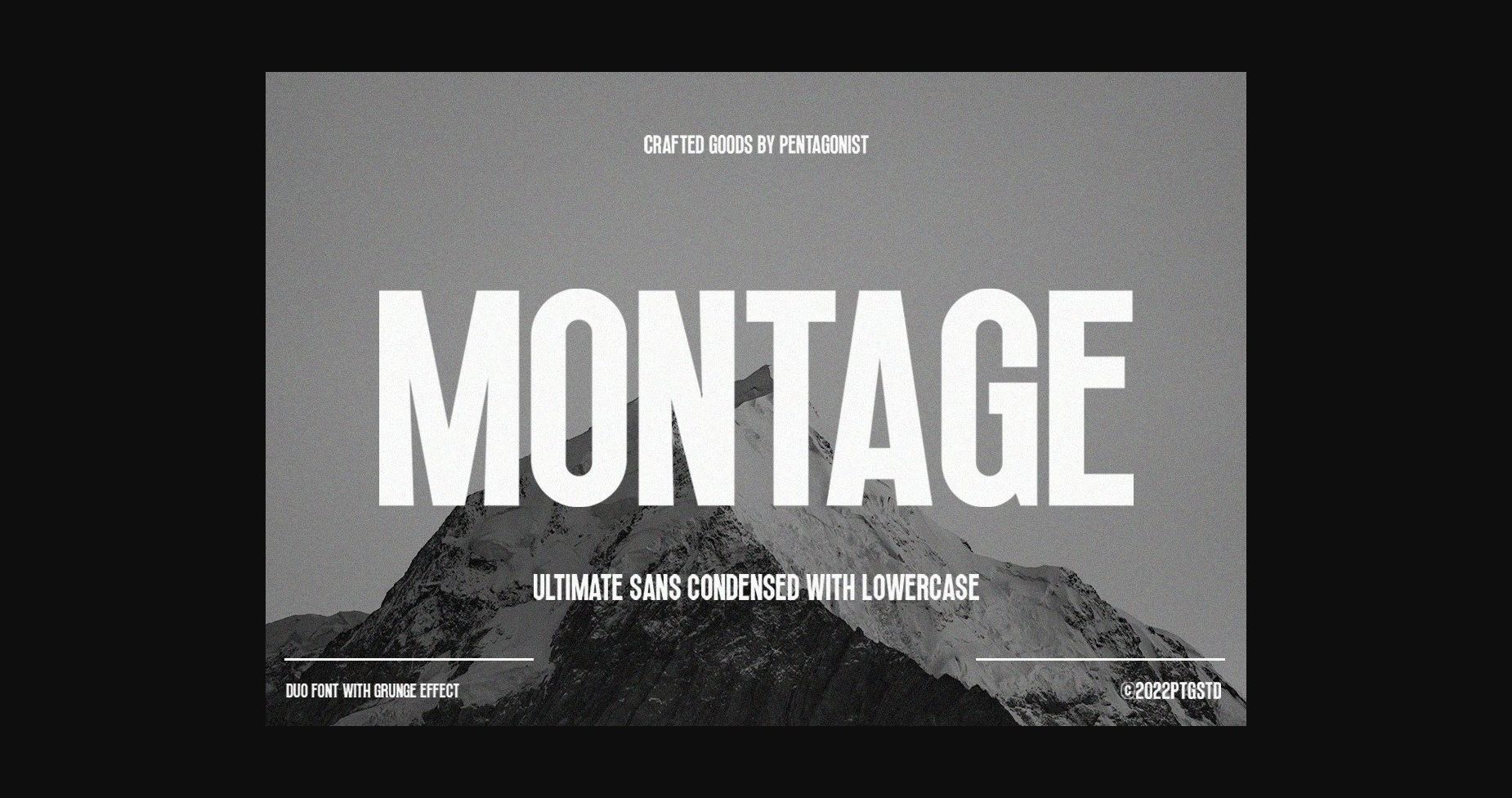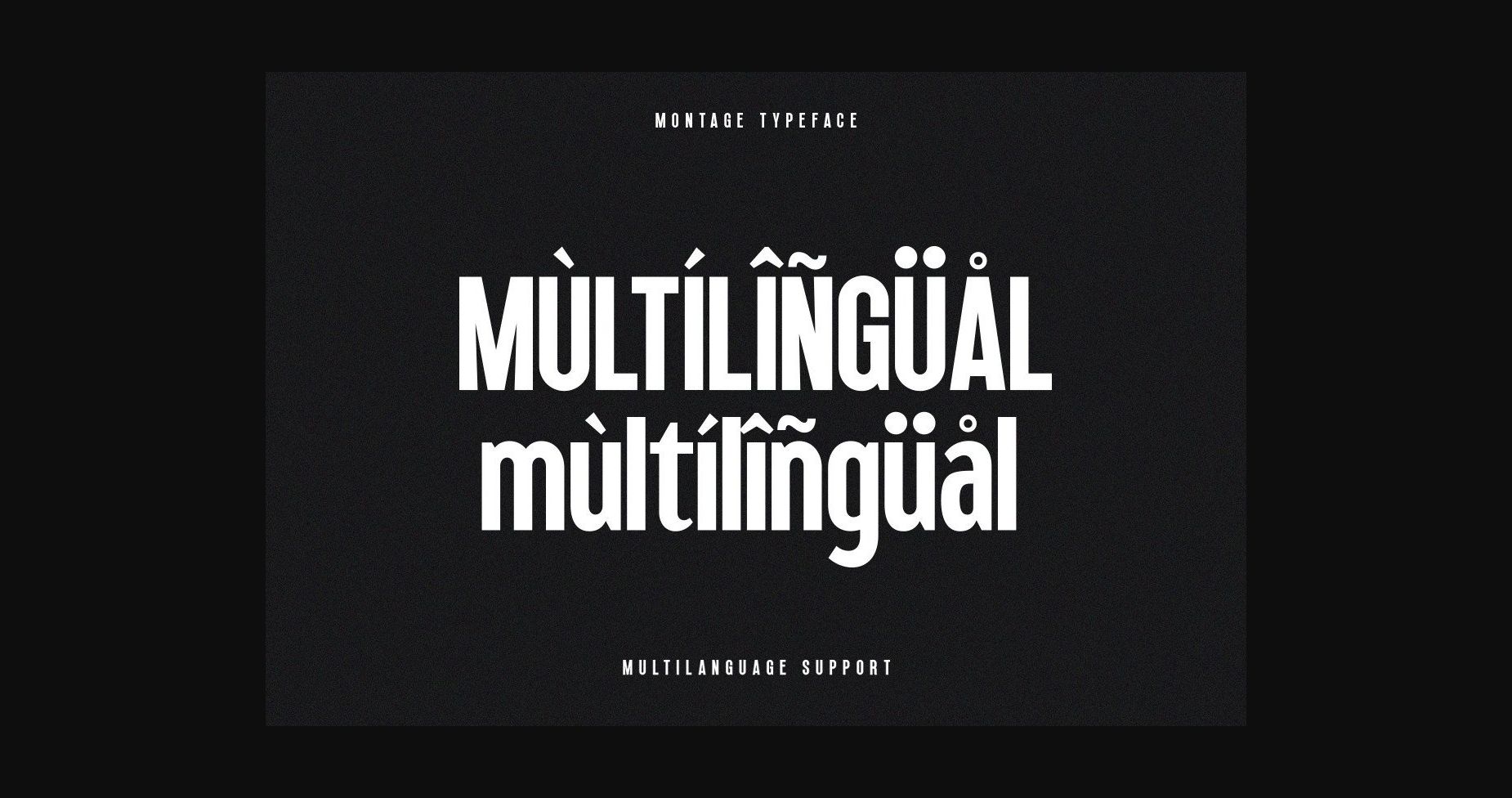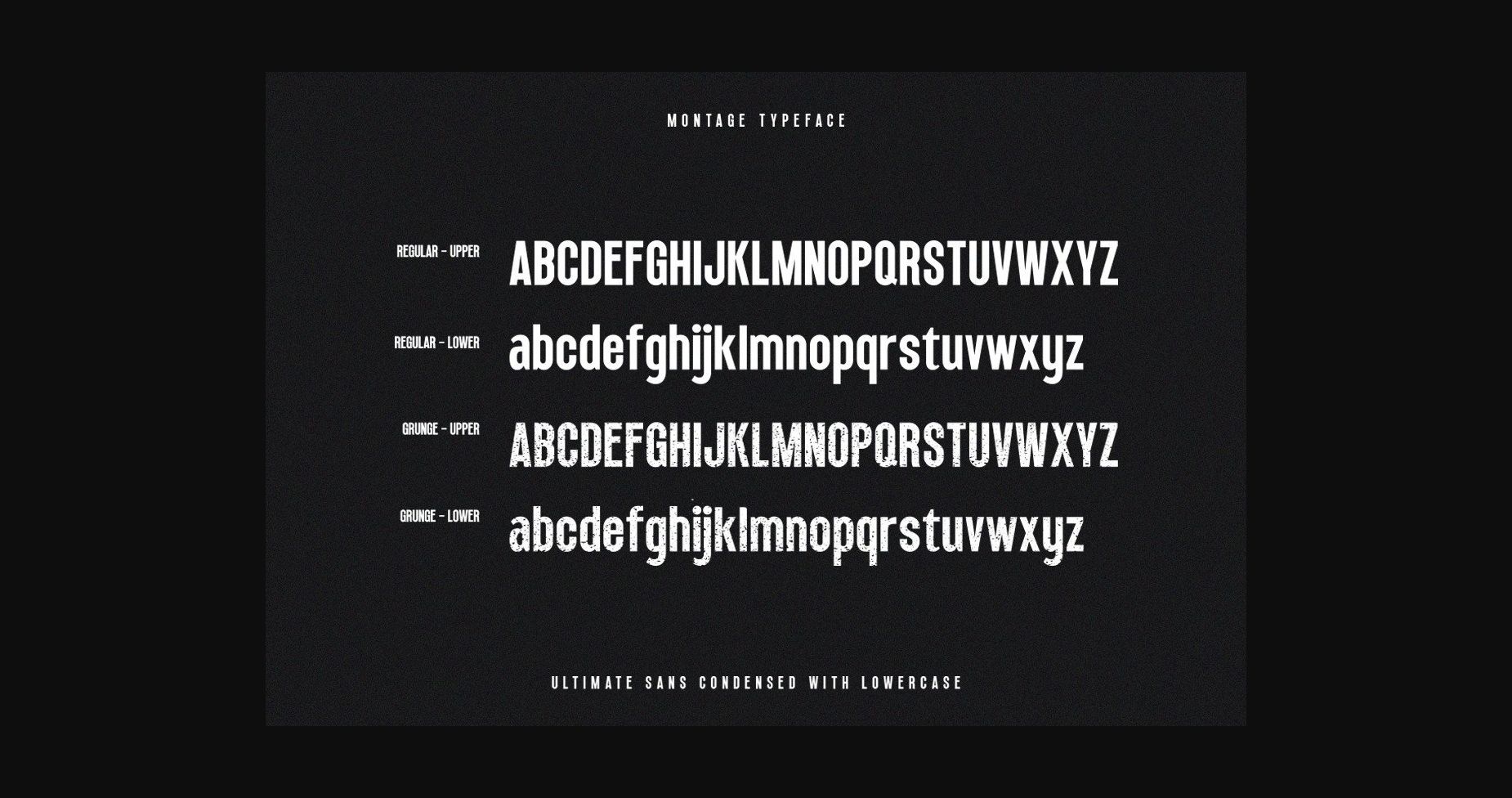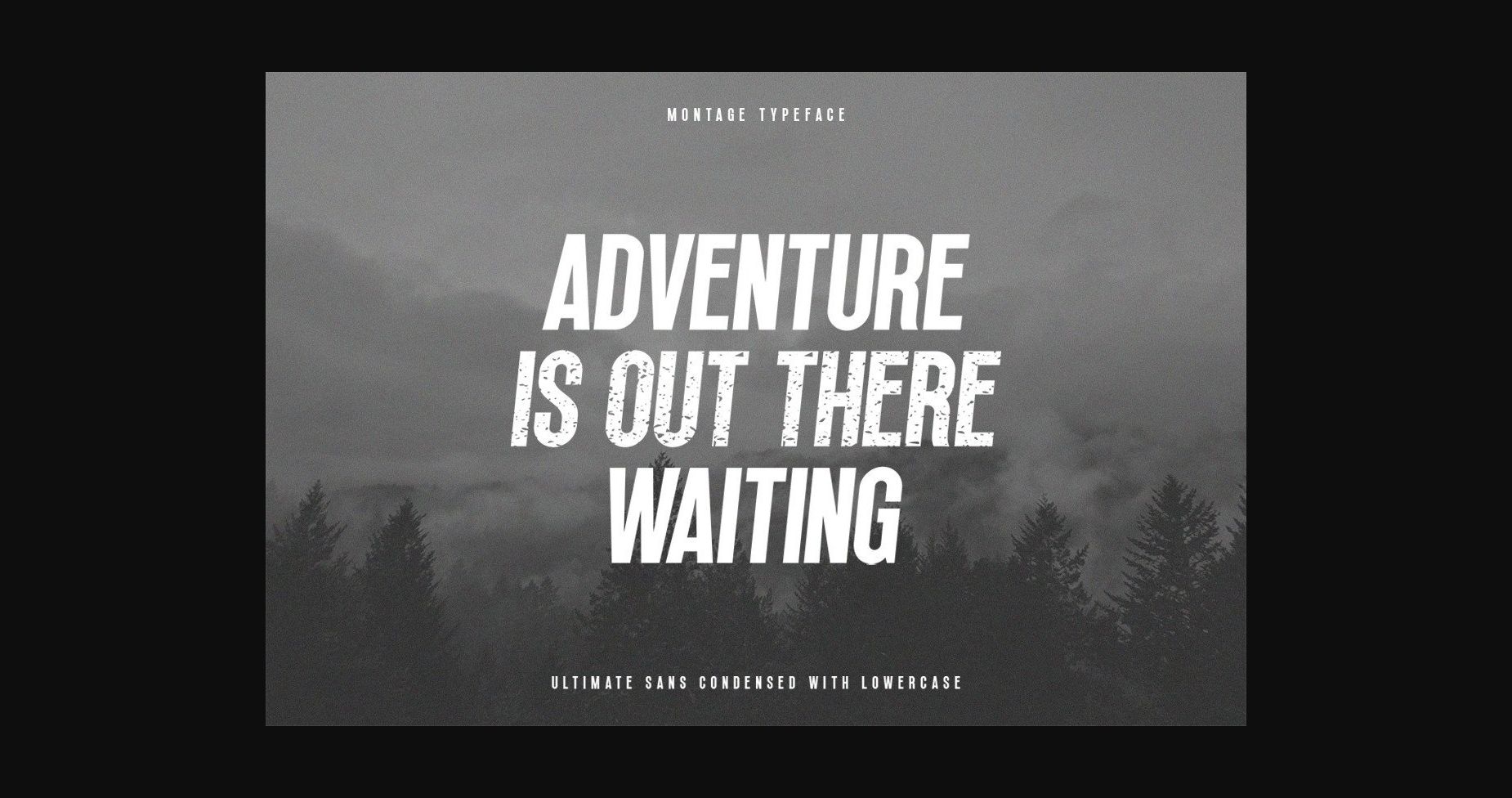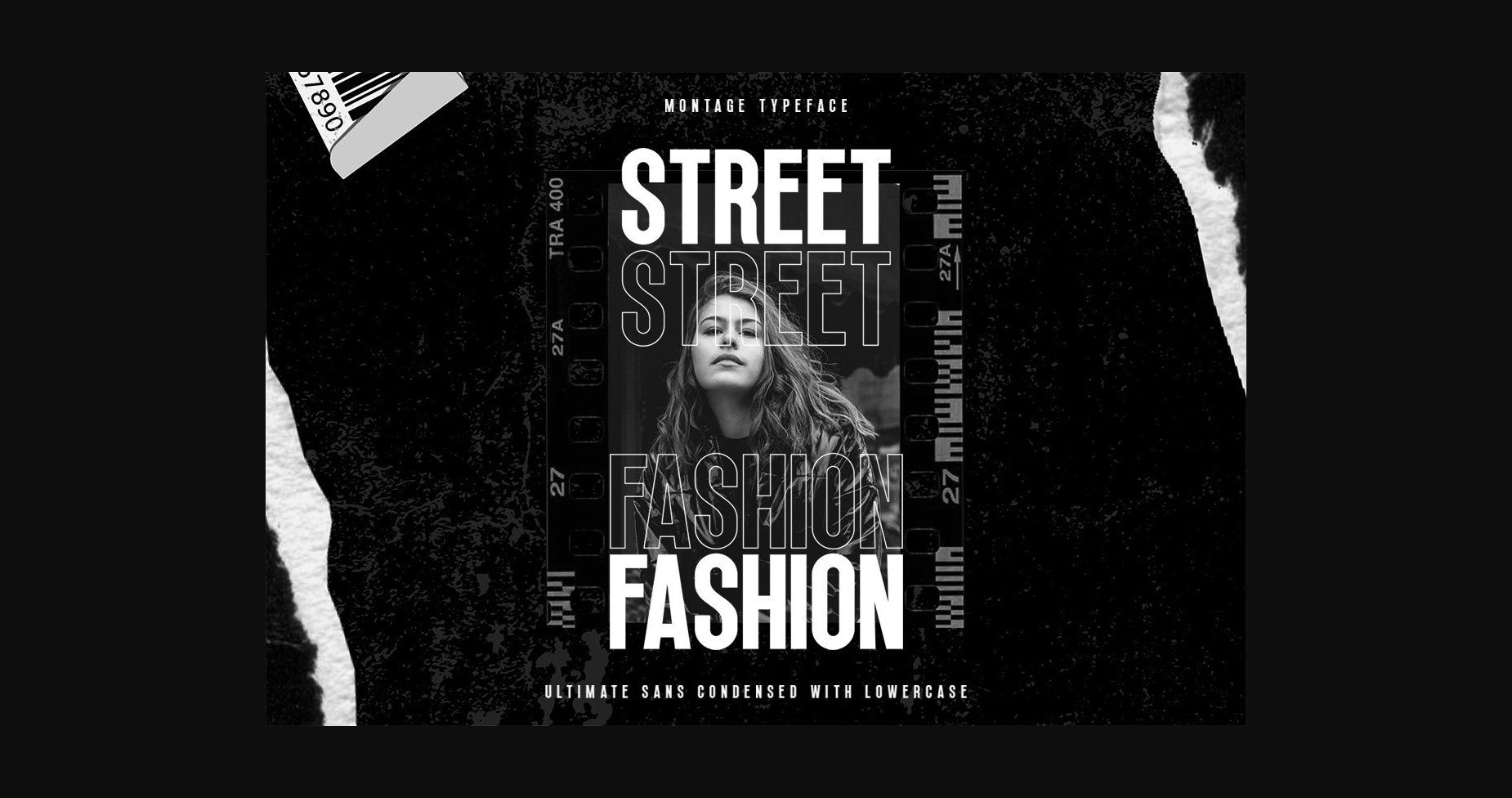
About Montage Font
Montage is a cool, vintage-style sans serif font. Masterfully designed to become a true favorite, this font has the potential to bring each of your creative ideas to the highest level!